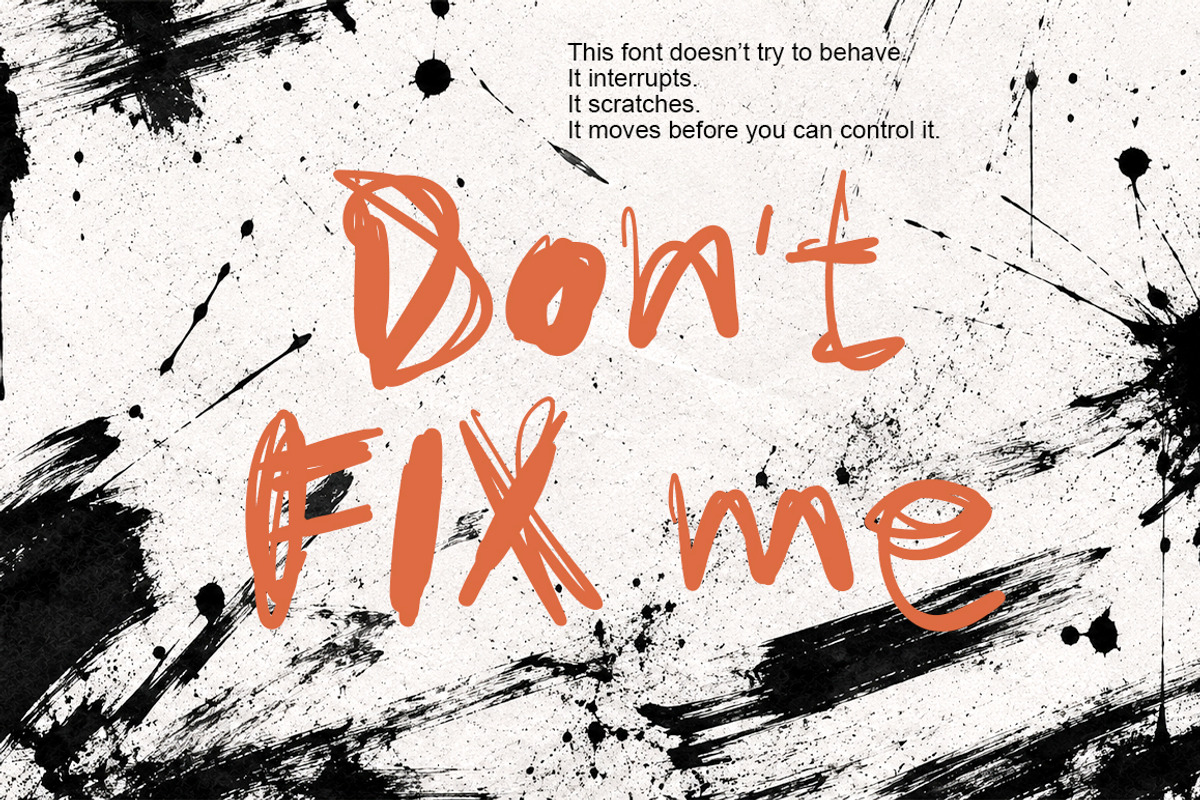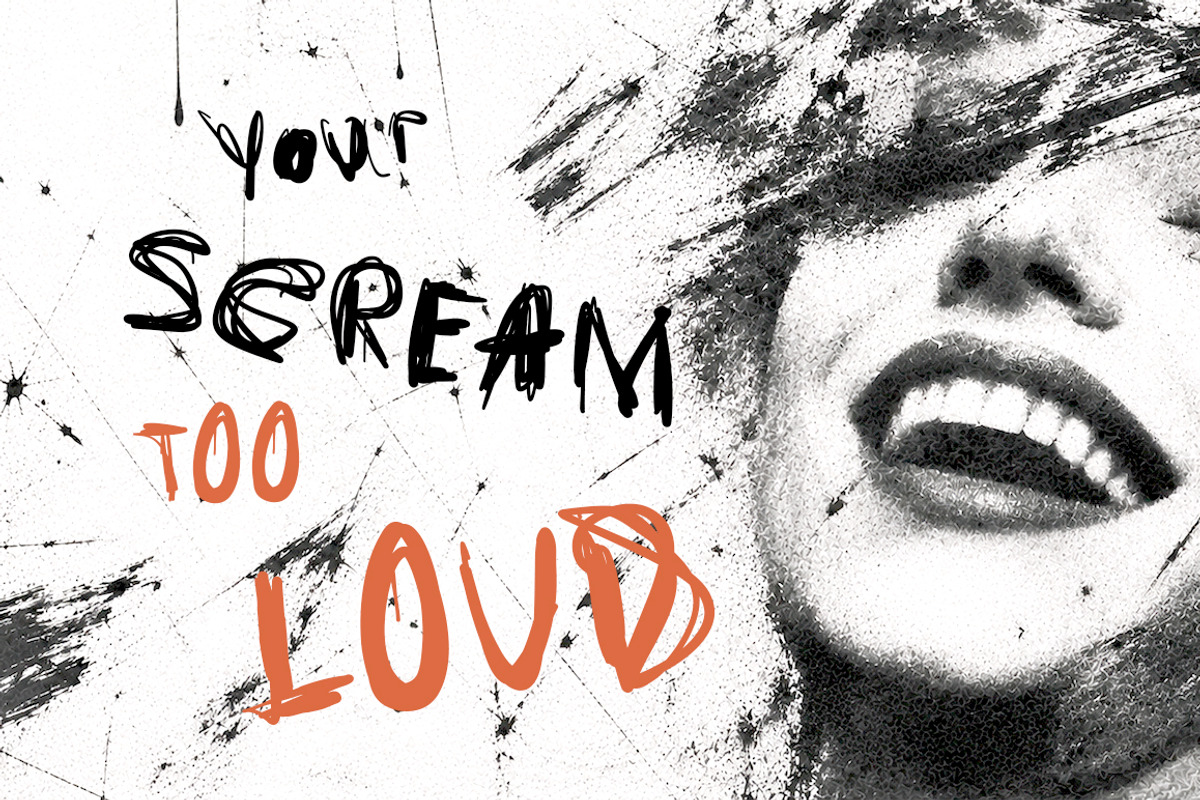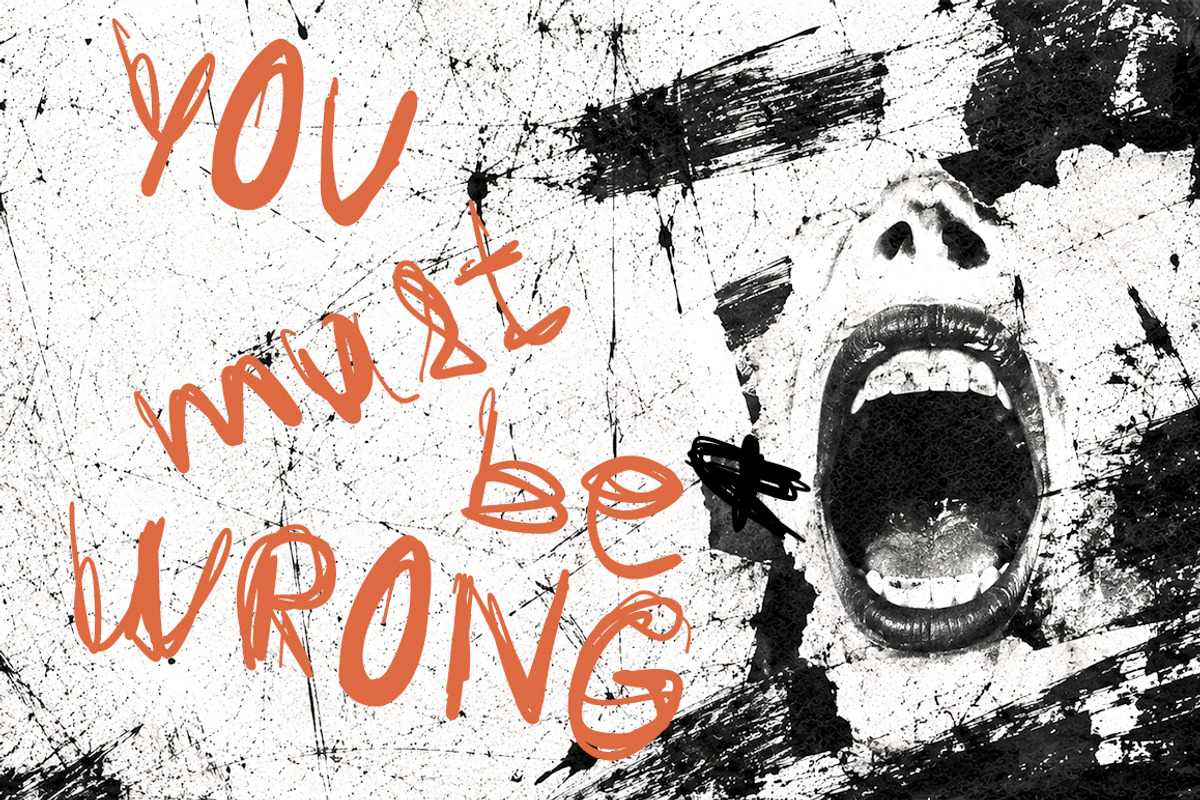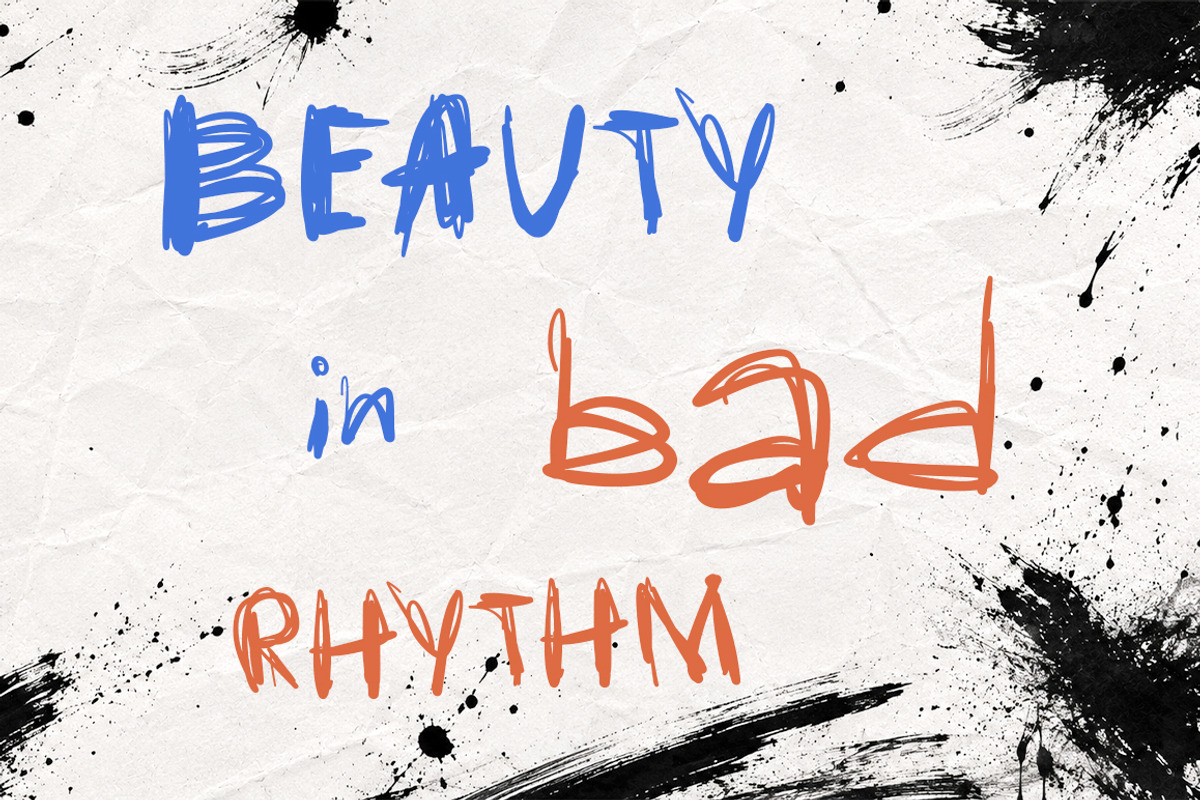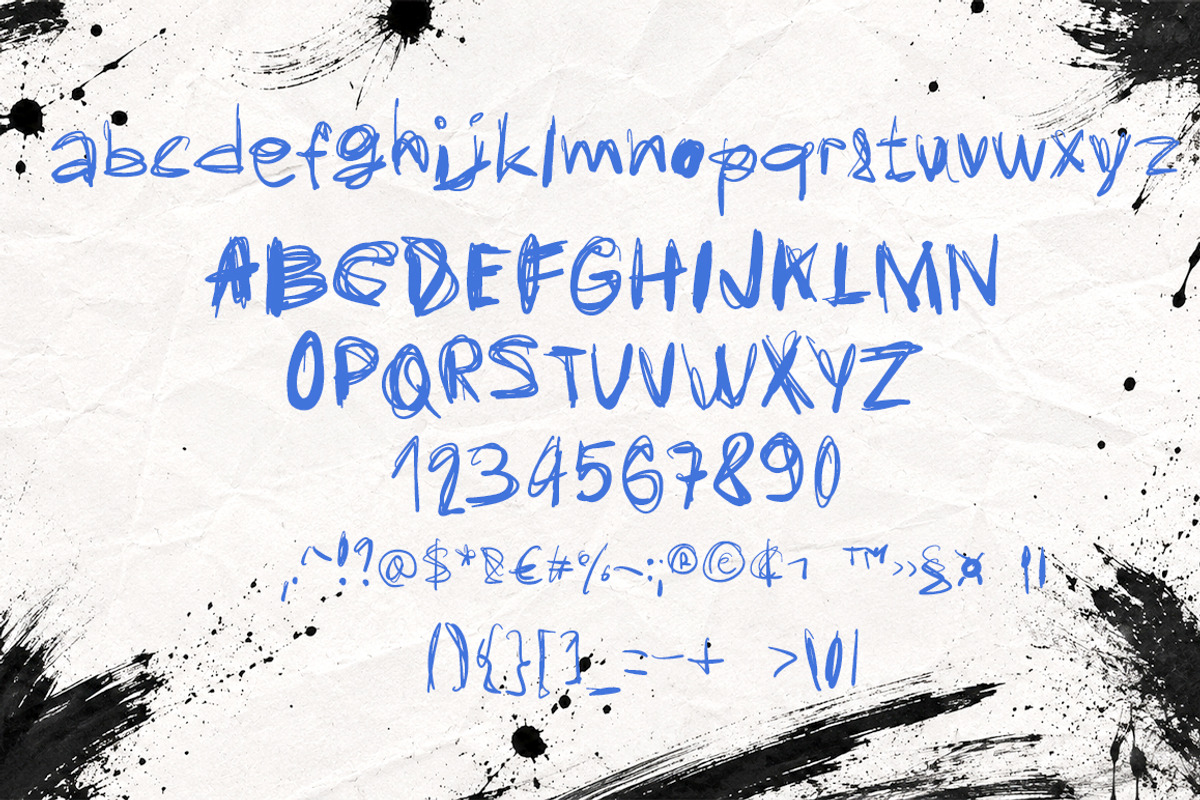
Don't fix handwritten instinct font
DON’T FIX ME is a raw handwritten font created from instinct, chaos and imperfect movement. It doesn’t try to look polished — it scratches, interrupts and breaks rhythm on purpose.
Inspired by emotional notes, underground posters, rough marker sketches and rebellious street typography, this font brings a loud human energy into your designs.
Every letter feels unstable, expressive and alive — like it was written too fast to be controlled.
Perfect for projects that need emotion instead of perfection. Perfect for
album covers
poster design
fashion branding
streetwear graphics
zines & editorial layouts
expressive social media posts
YouTube thumbnails
rebellious packaging
quotes & artistic typography
horror / grunge aesthetics
contemporary collage design
emotional branding projects
Uppercase & lowercase
Symbols
Hand-drawn character set
Raw imperfect strokes